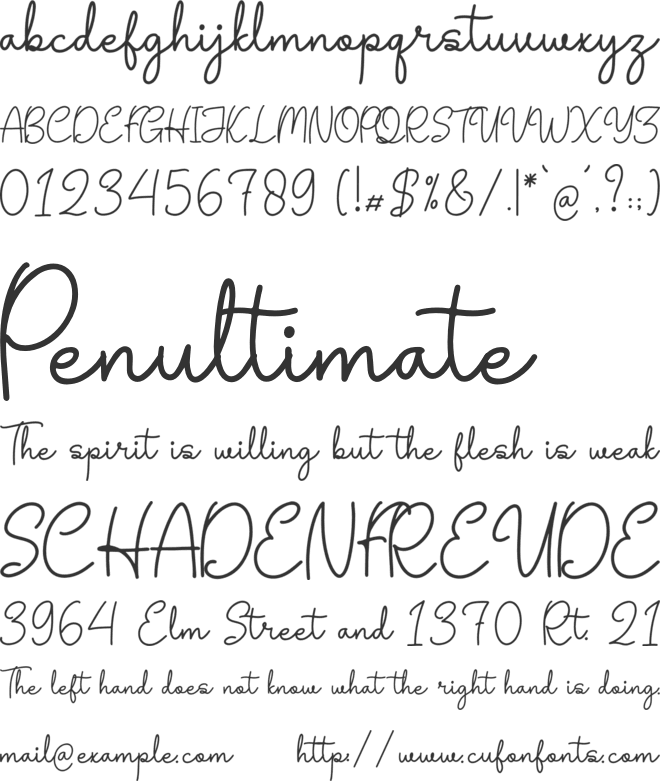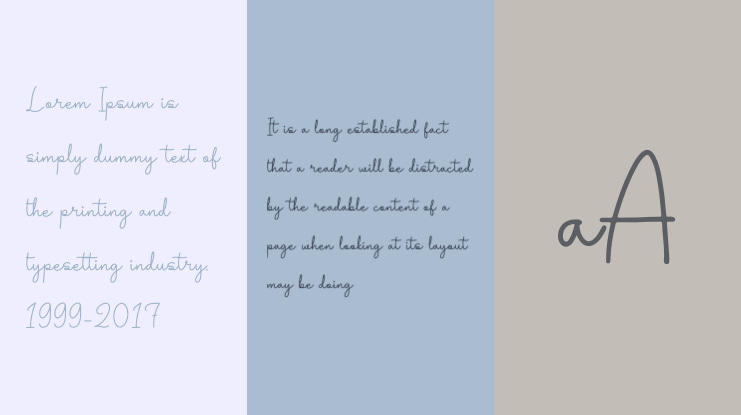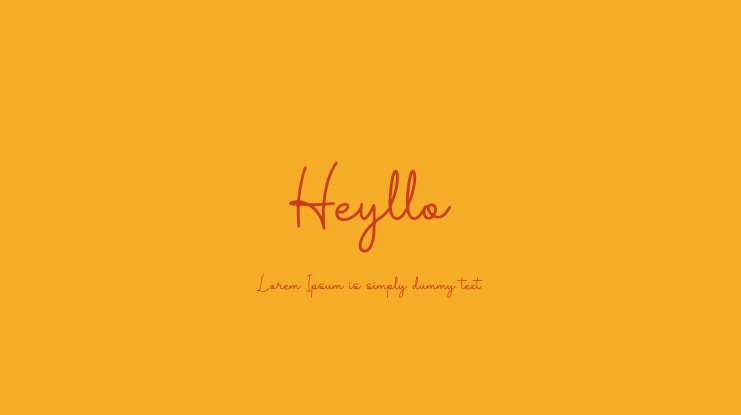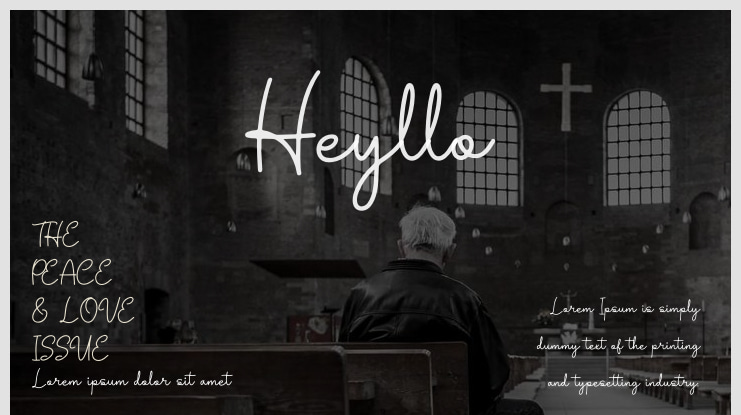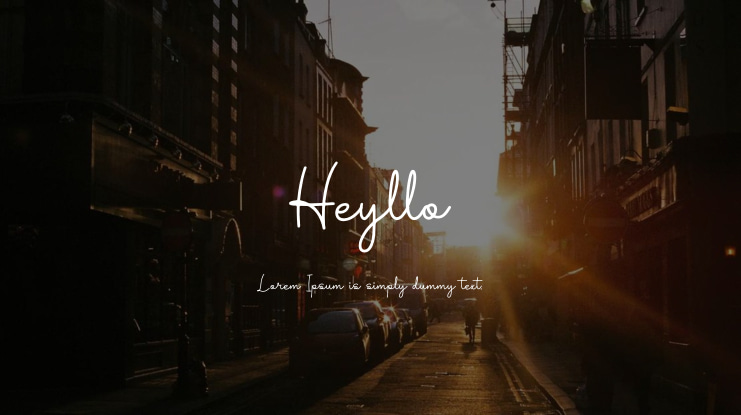
Heyllo | Monoline Script is suitable for various projects such as logos, branding, homeware designs, product packaging, quotes, posters, apparel, book covers, name cards, invitations, labels, photography, watermarks, special events, and other creative endeavors that call for an elegant script font.